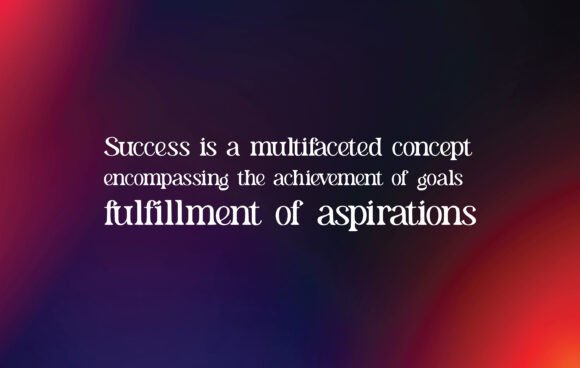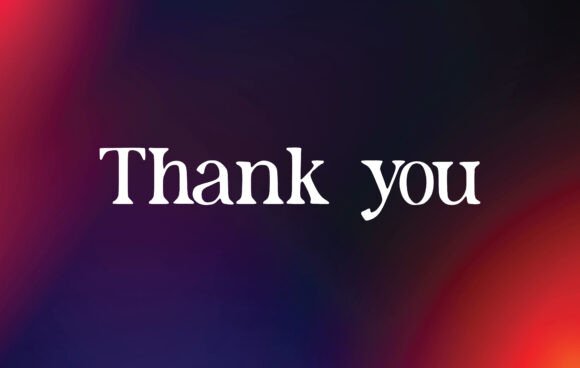
Introduction to Kya Font
Kya is a high-contrast serif font with graceful curves and distinctive character.
Perfect for editorial design, luxury branding, packaging, or wedding invitations, Kya combines sophistication with strong visual impact for timeless elegance .
Key Features of Kya Font
Why Choose Kya Font?